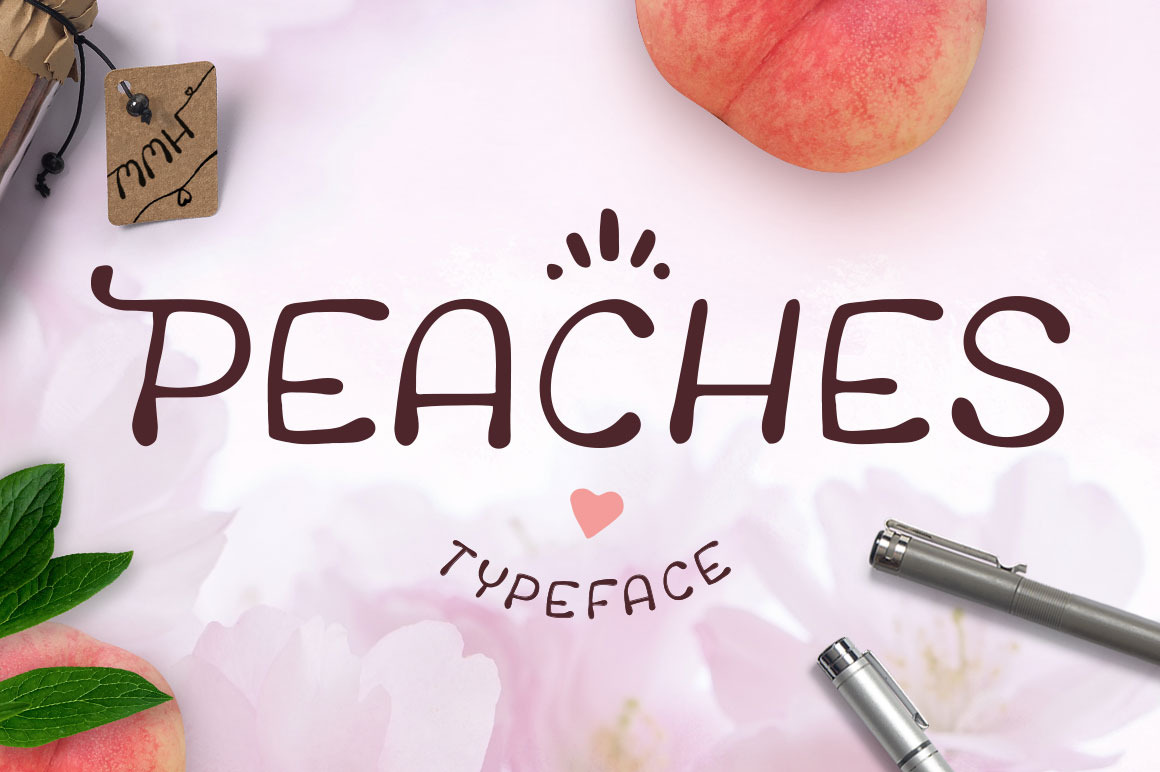
Peaches * Wedding Font
Let me introduce you to Peaches - A cute new hand-illustrated fontfamily - made with a pen and lots of love, alternates and swirls! I really enjoyed crafting this new rounded Uppercase Font that was inspired by the round shape of peach blossoms.
This is a cute Wedding Font, Craft Font and Scrapbooking Font: Create beautiful logos, wedding invitations, DIY projects, headers, branding, blogs, handmade craft items, scrapbooking, printed paper items and more with the lovely Peaches Typeface - a hand lettering font.
Here's what you get with the PEACHES typeface:
- Peaches is an All Caps Font, but Uppercase Characters differ from Lowercase Characters (except the "Smallcaps" Font)
- Western European Diacritics
- Alternate Characters
- Caps with Ribbon & Heart from both sides
- Swirls
- Two Weights - Regular & Bold